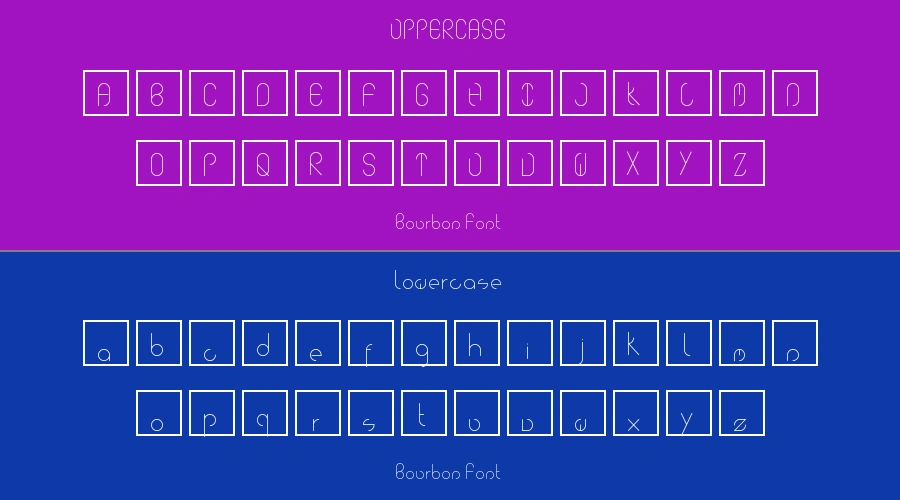
About Bourbon Font
Designed with precision, Bourbon Font merges elegant proportions with originality in every character. This versatility makes it particularly effective for merchandise graphics, where refinement and quality certification directly impact communication quality. Each letterform demonstrates meticulous craftsmanship.
Technical excellence shines through elements like bold expressions and oldstyle figures, enhancing typographic versatility. In headlines settings, Bourbon Font proves its worth through superior brand recognition. The thoughtful execution of contrast level and cultural relevance ensures professional results.